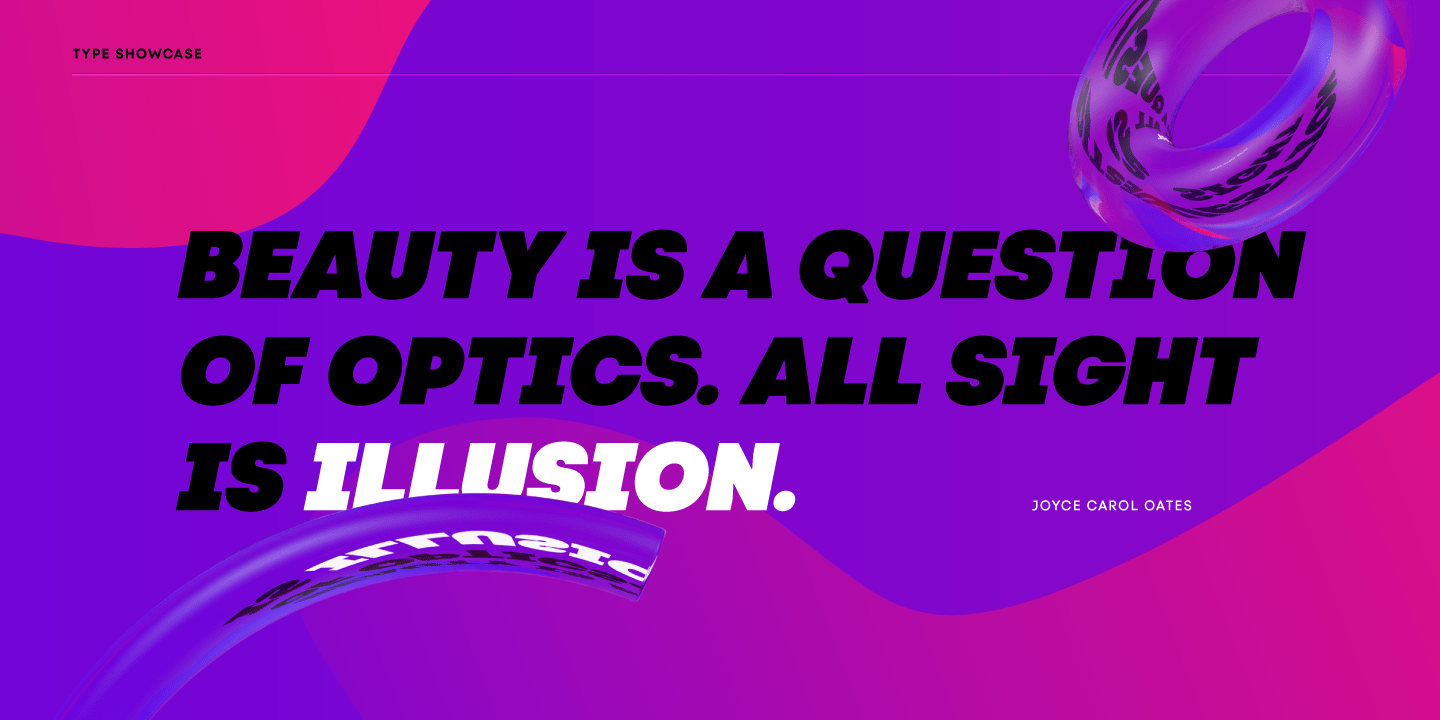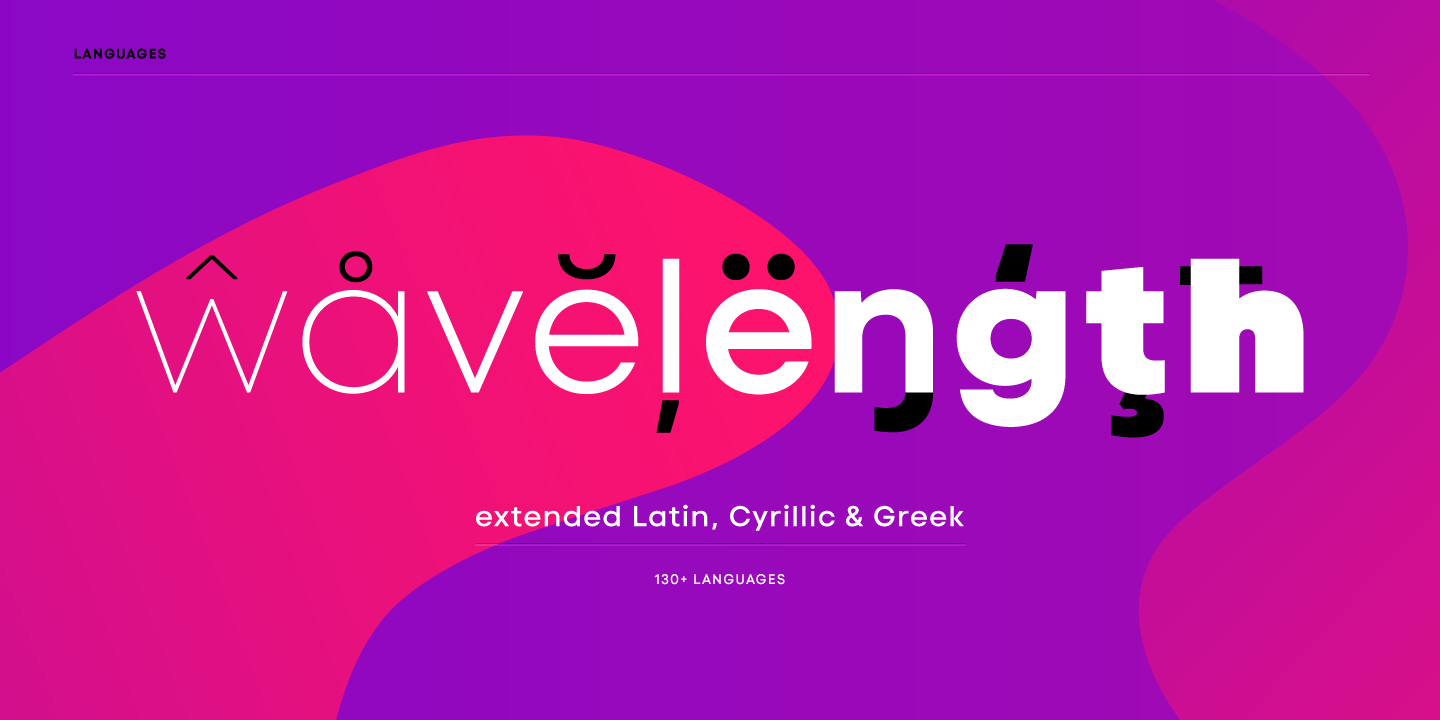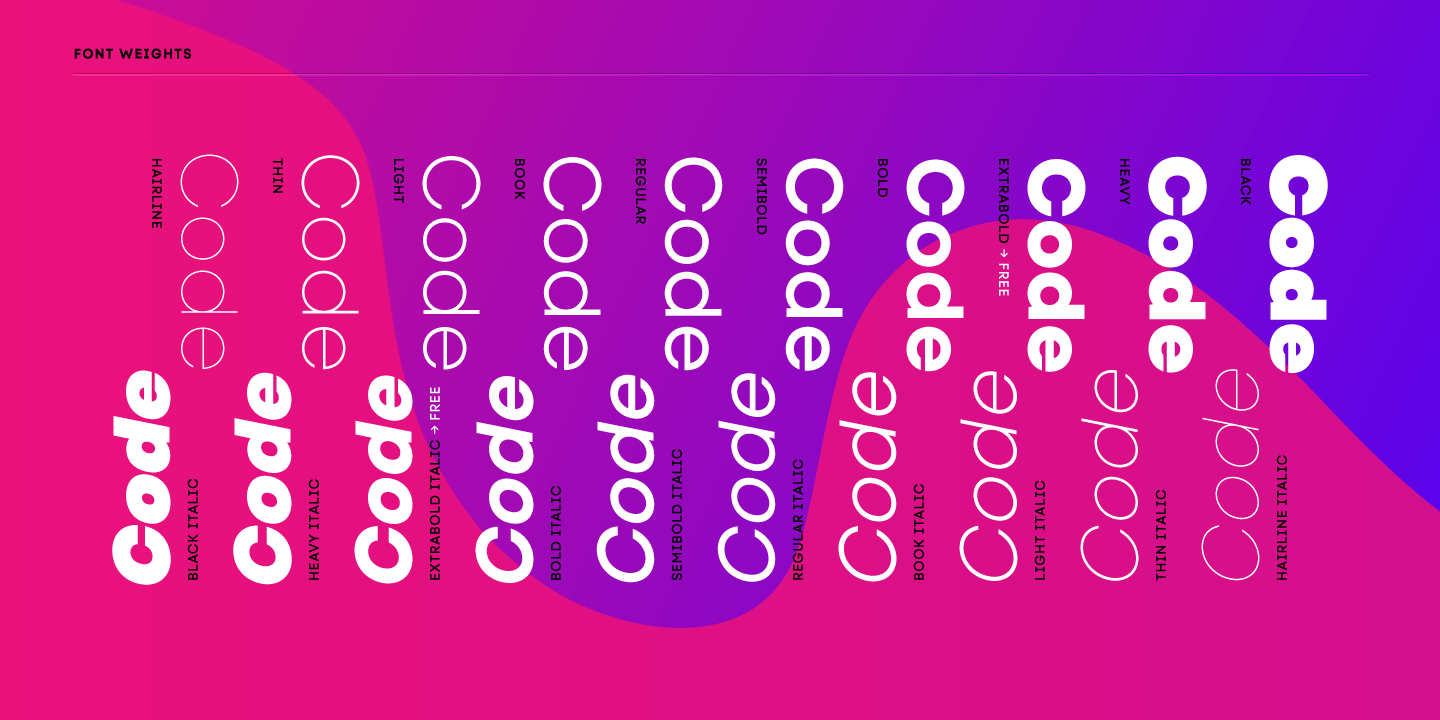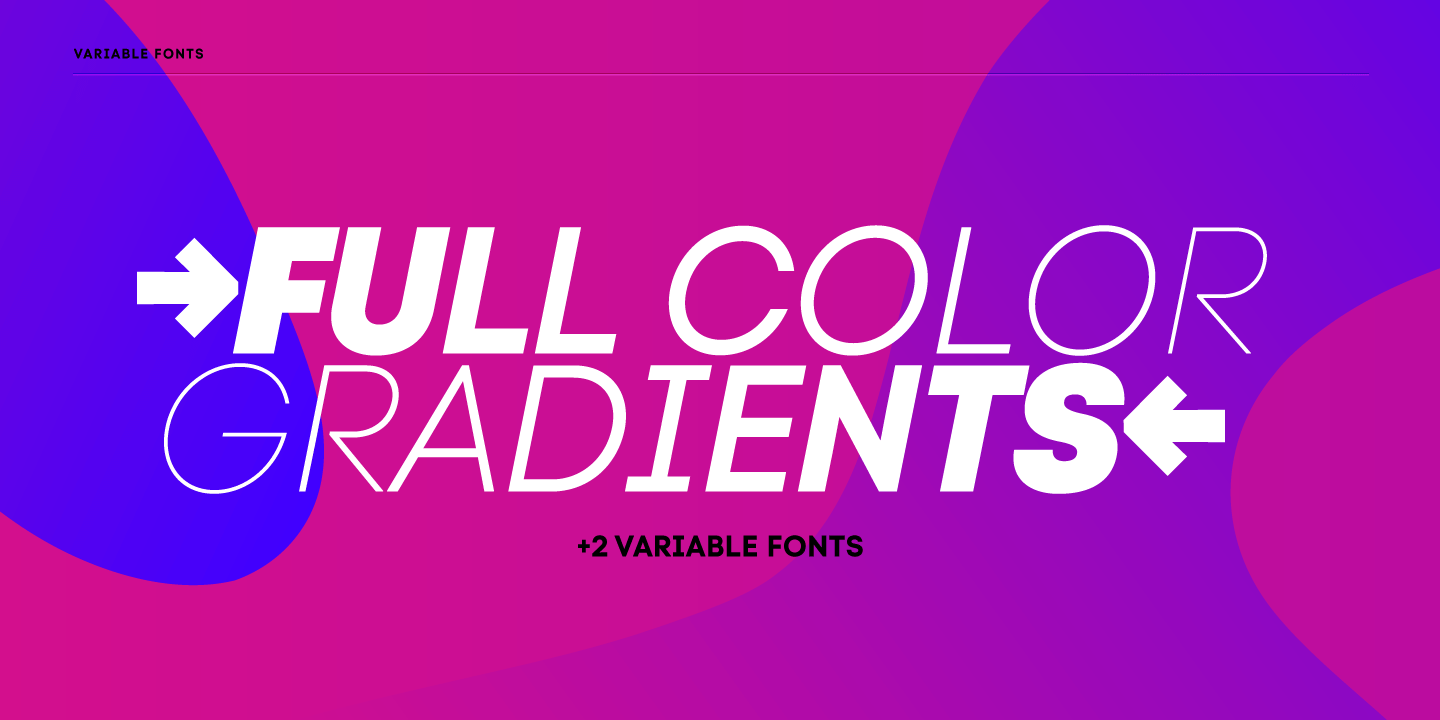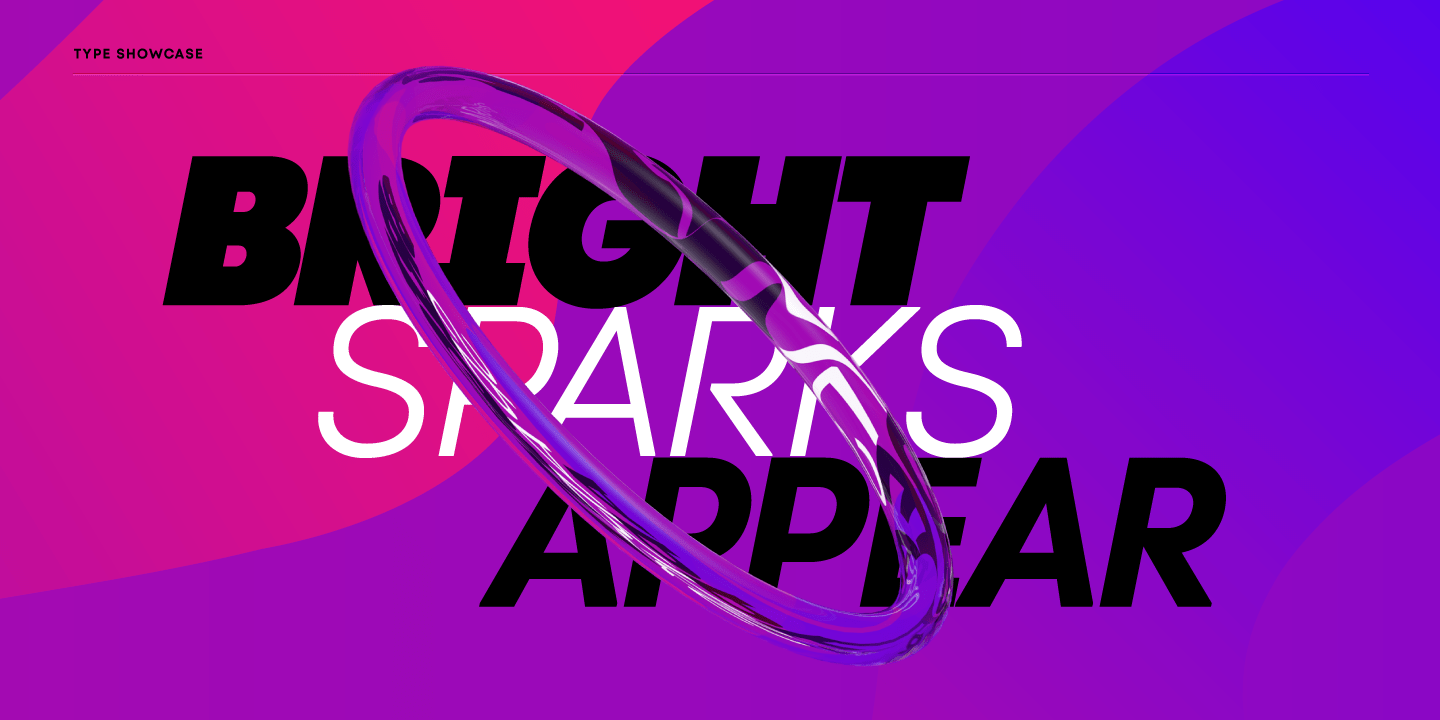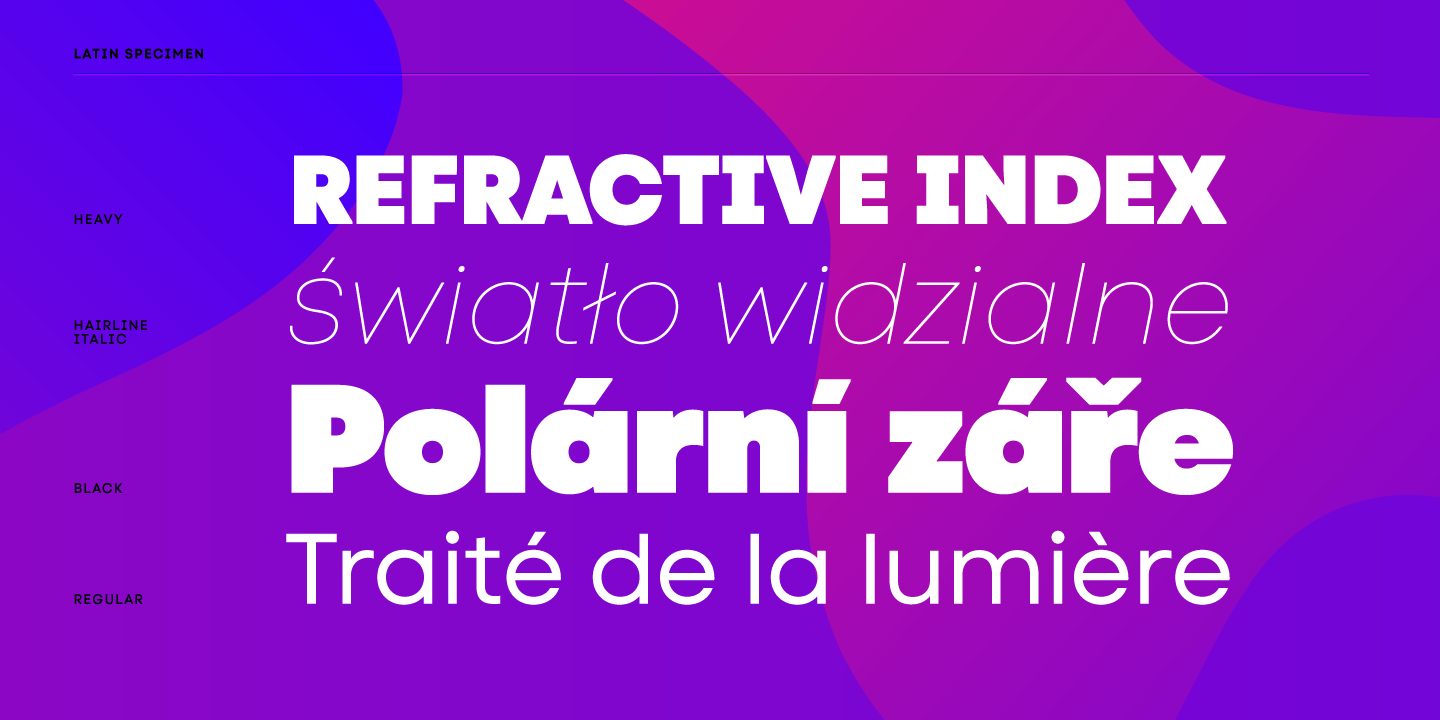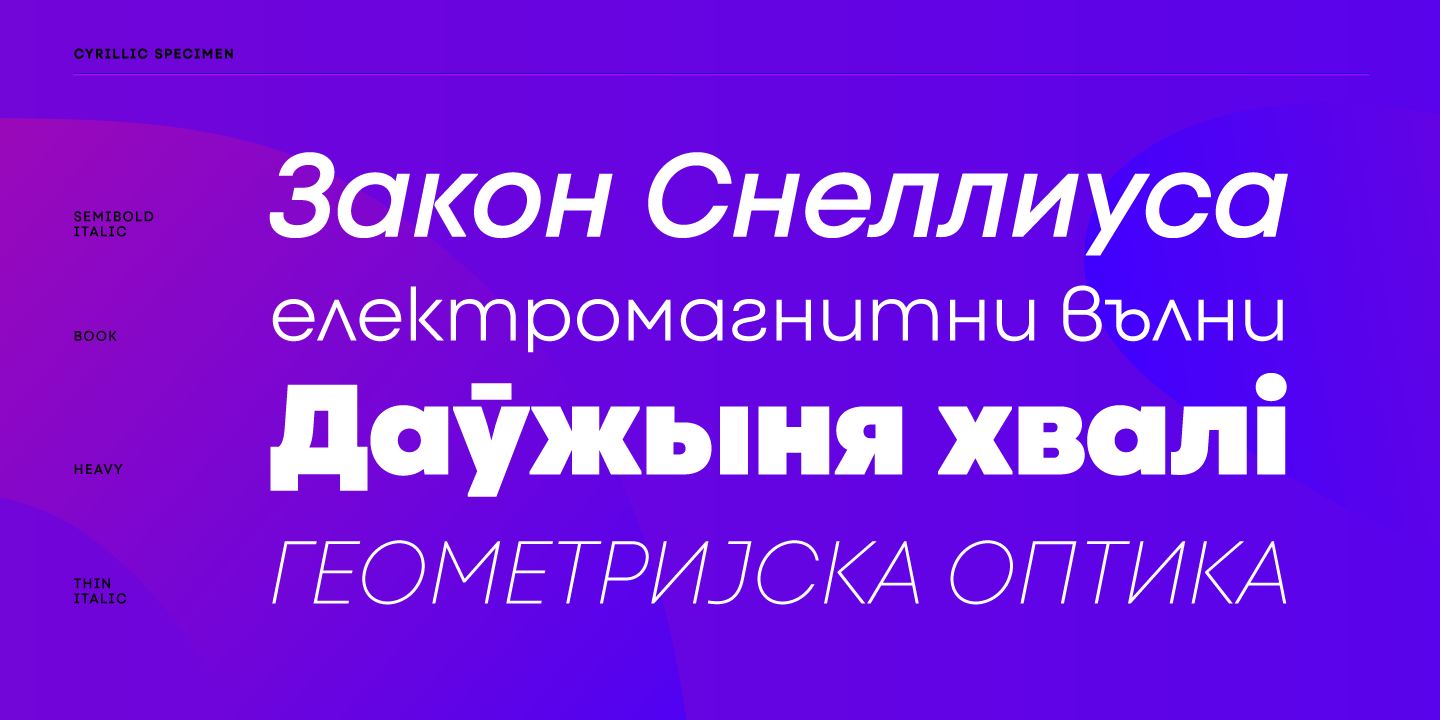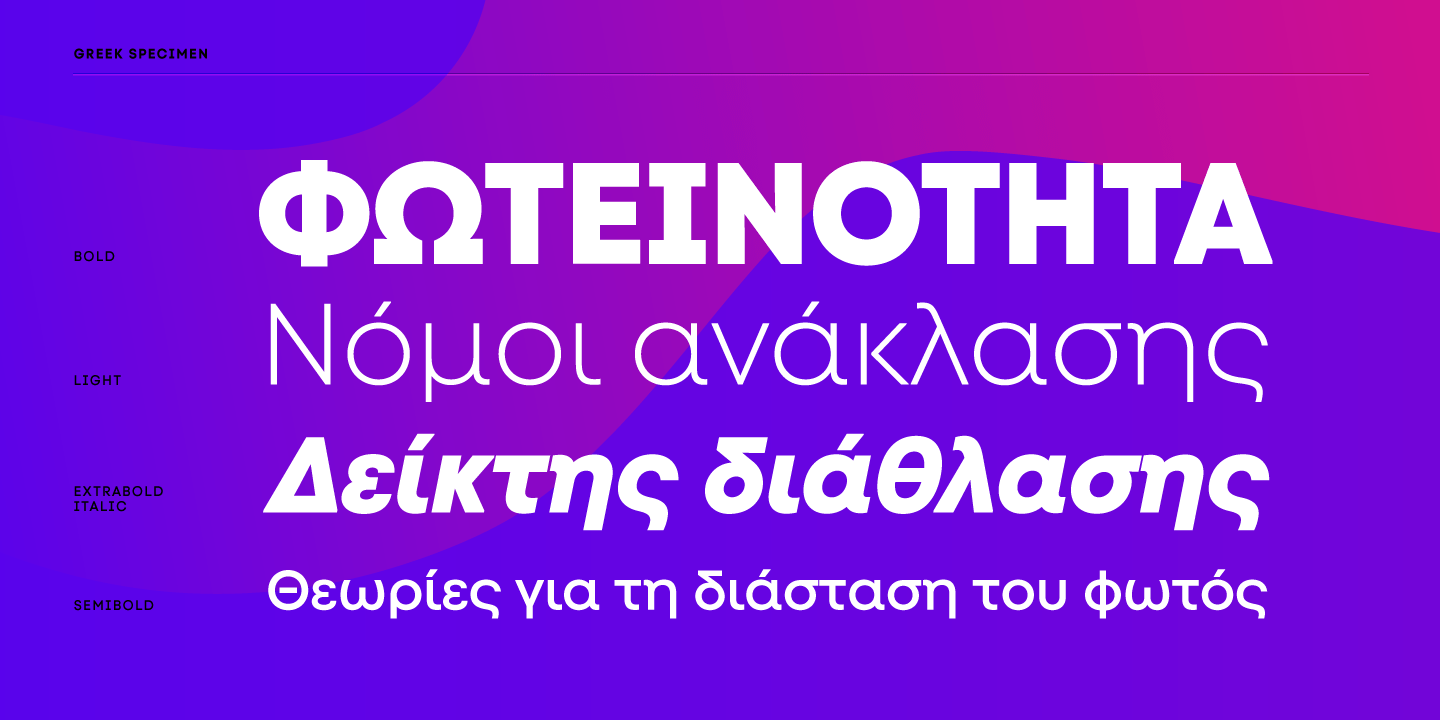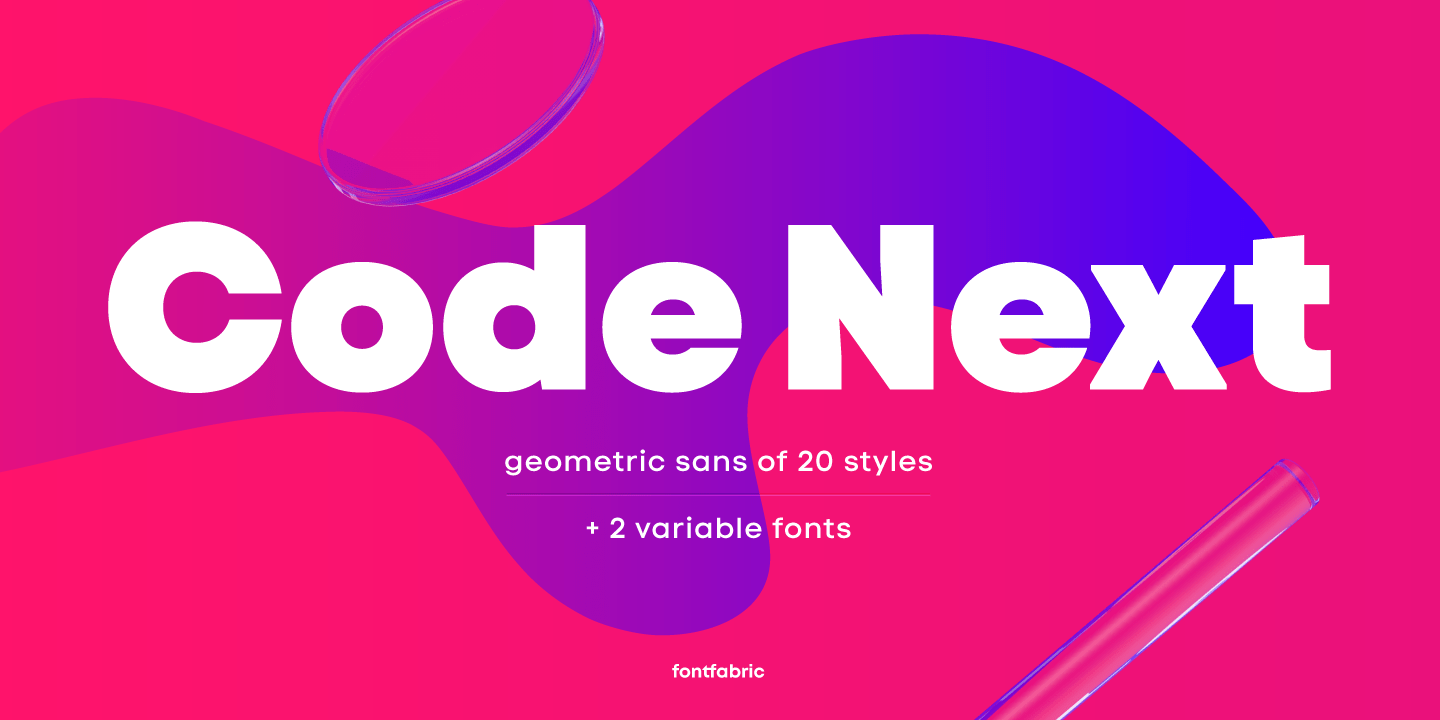
Code Next
About Code Next
10 years later, one of the first geometric typefaces in our font portfolio and a popular favorite of yours is rising to a whole new level! We're revealing the stand-alone type family Code Next?a staggering evolution from Code Pro in functionality,…